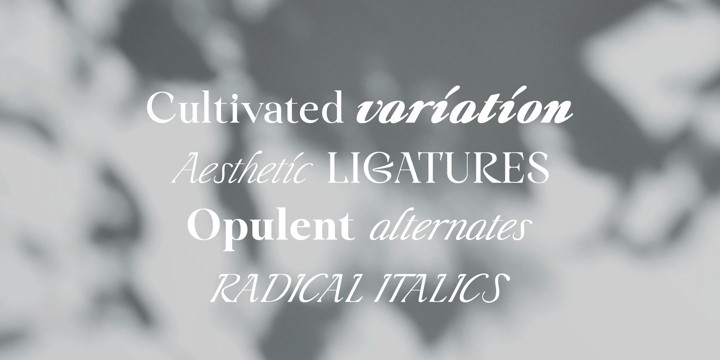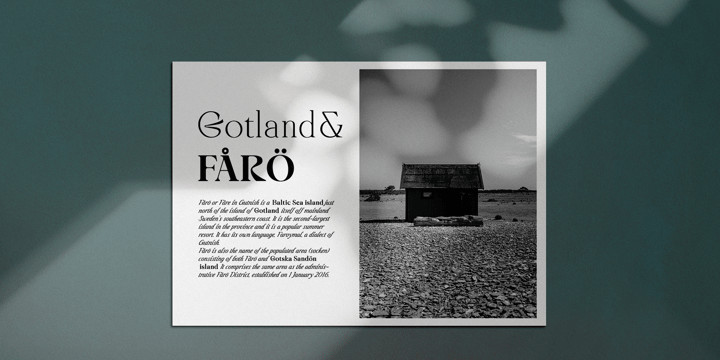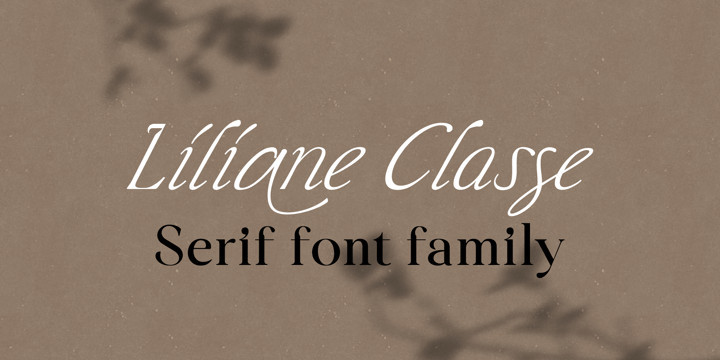
Liliane Classe Font FamilyThis is a challenge for elegant but radical typography layouts.
Standard styles include classic and sophisticated serifs, while italic styles are designed with more adventurous handwritten touches.
This serif font family included a total of 14 styles, including 7 weights and separately created italics.
It can be the best choice for a unique and meaningful logo and branding design, and it will maintain a refined sense of unity.